Moser
Moser is regarded as one of the world’s most renowned luxury crystal brands. The company was founded in 1857 in Karlovy Vary, Czech Republic. Moser crystal is found in the residences and palaces of monarchs, statesmen, and governments around the world.
Moser’s product portfolio includes luxury drinkware and decorative glass collections that have remained in continuous demand for decades, alongside new collections developed by the company’s design studio in collaboration with contemporary glass designers.
The modernized Moser wordmark was developed from its original, typographically dated form. The redesign refined it into a new, confident identity featuring proudly applied shading, logical character connections, and a level of contrast appropriate to the brand’s elegance.
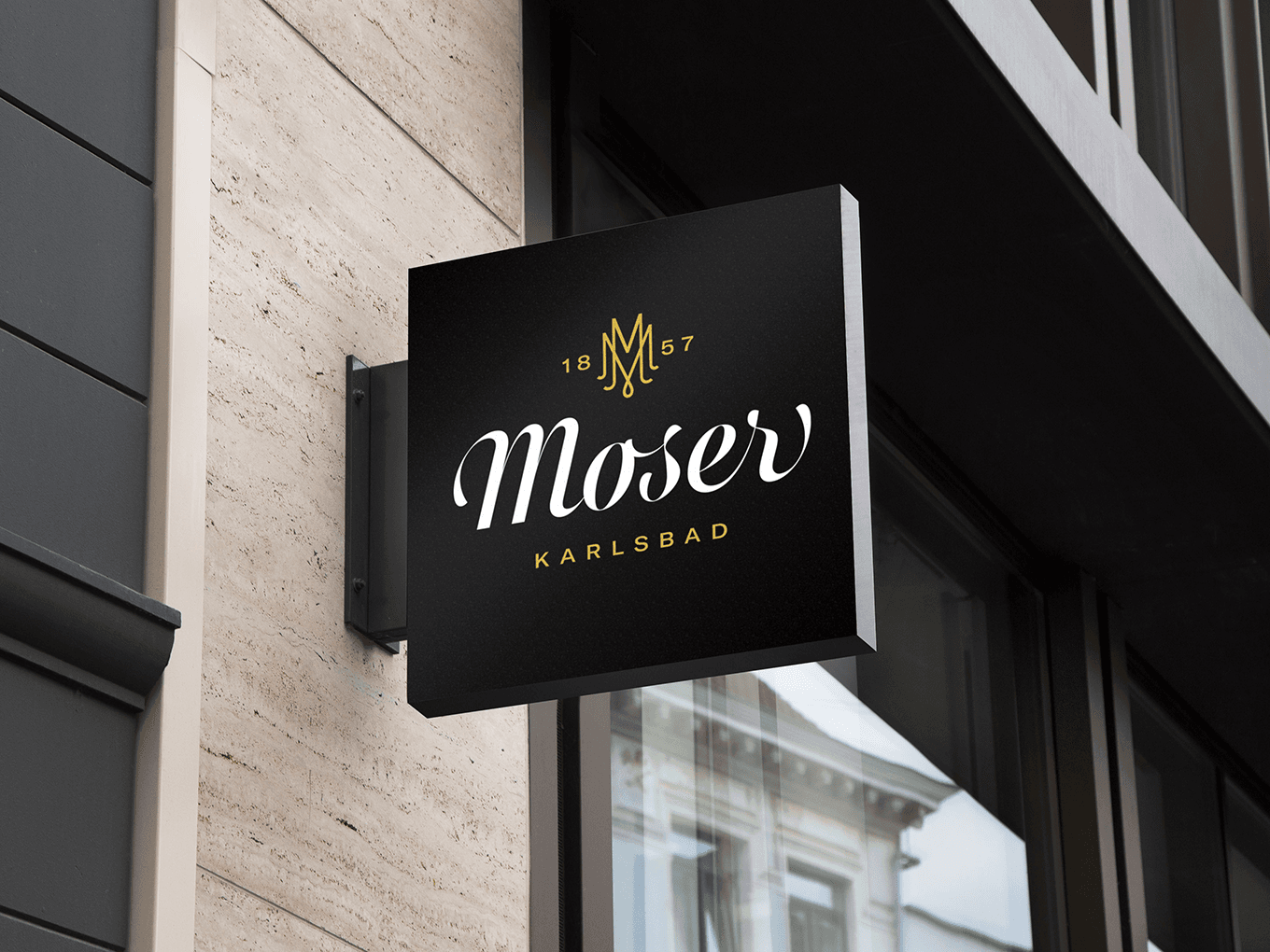
The logo was created in two optical styles, taking advantage of the possibilities offered by variable font technology. The high-contrast display version is complemented by a more robust optical variant suitable for applications such as sandblasting and gilding.